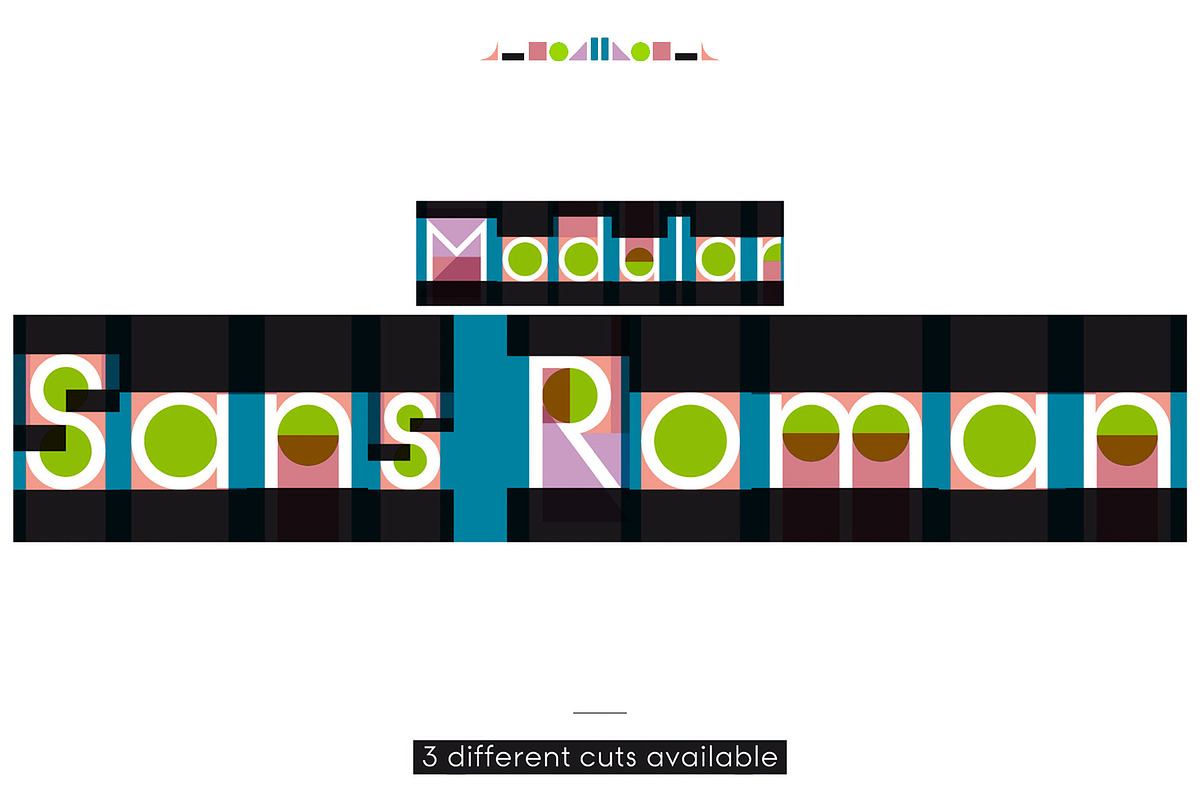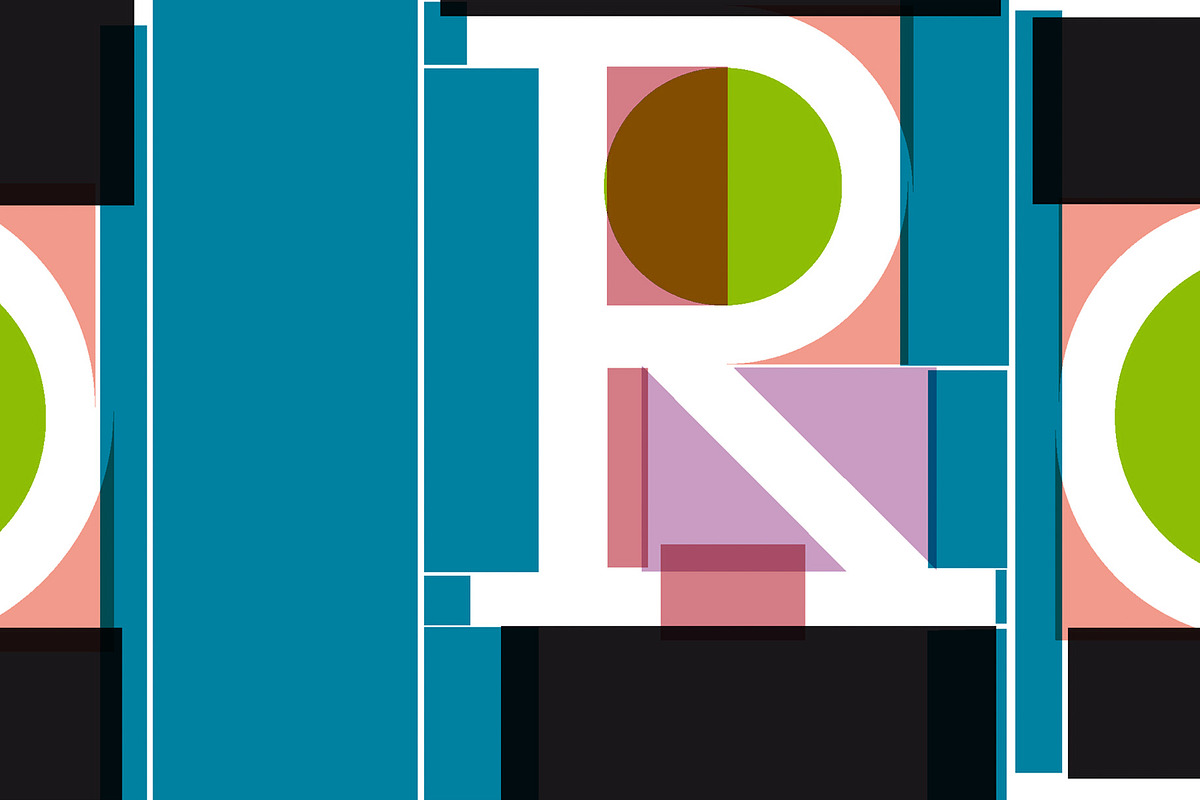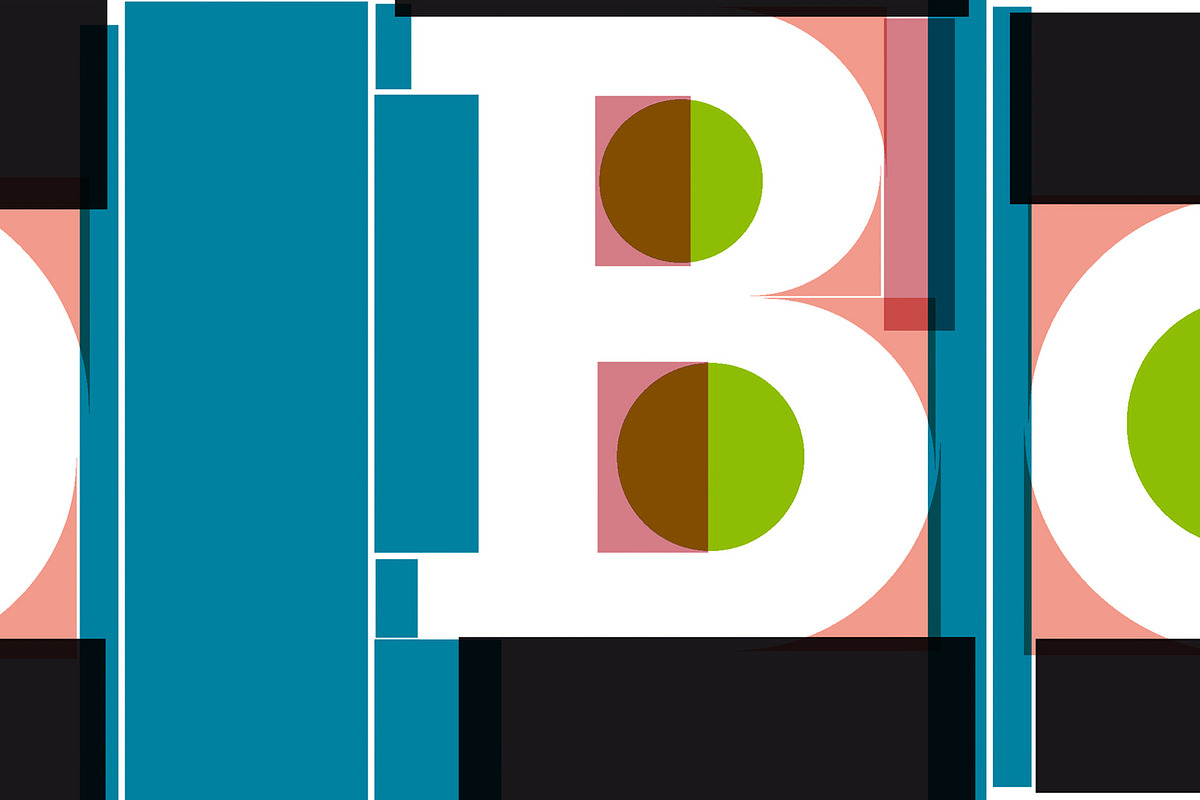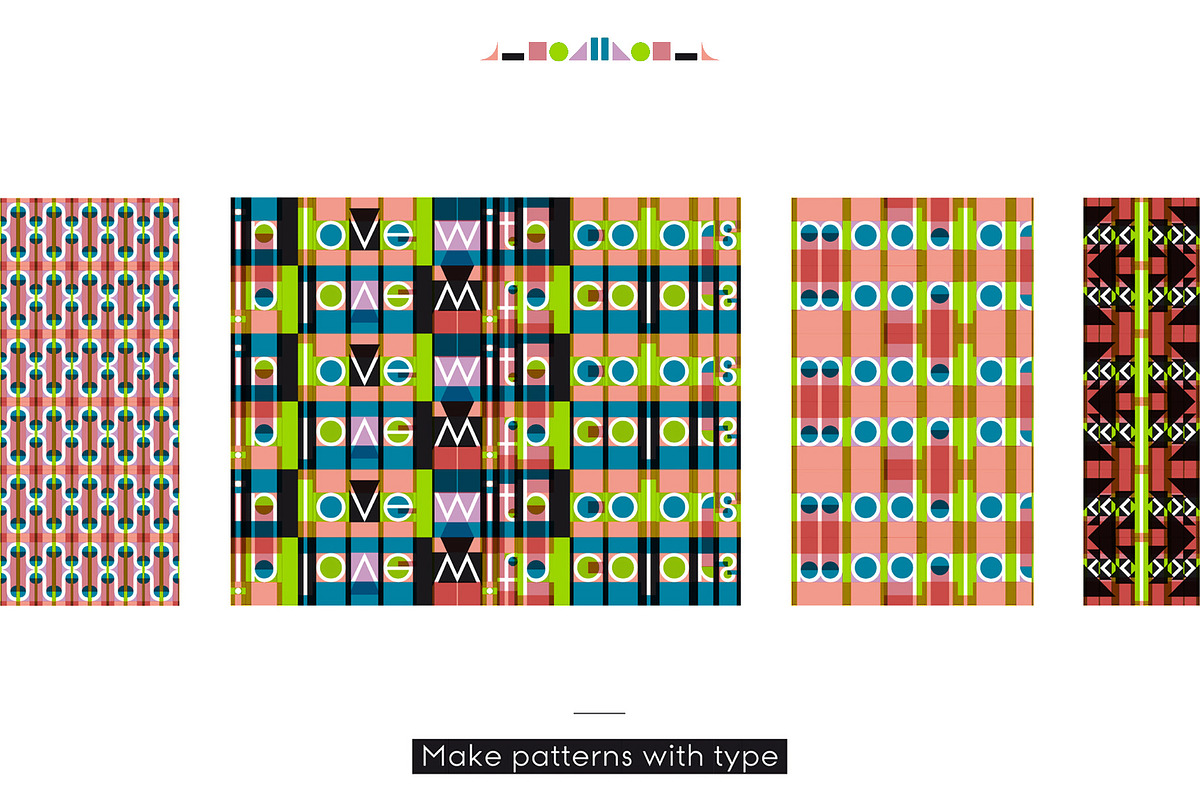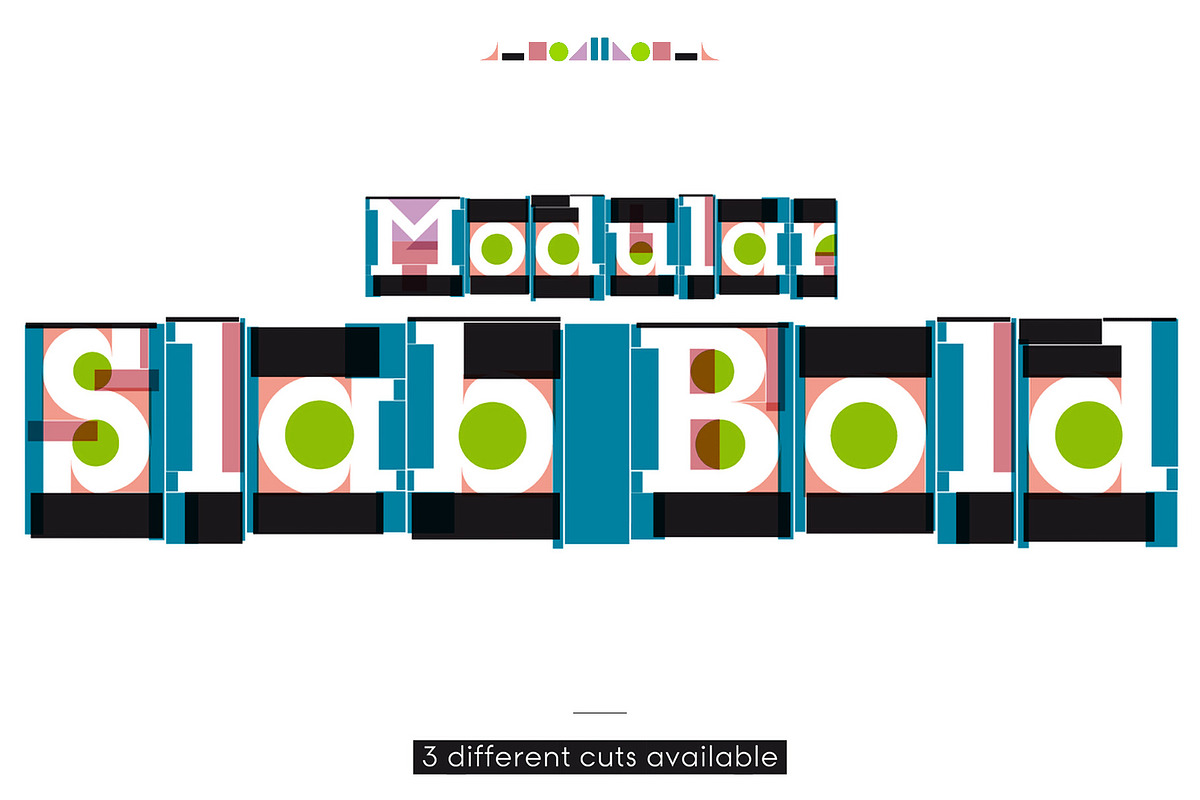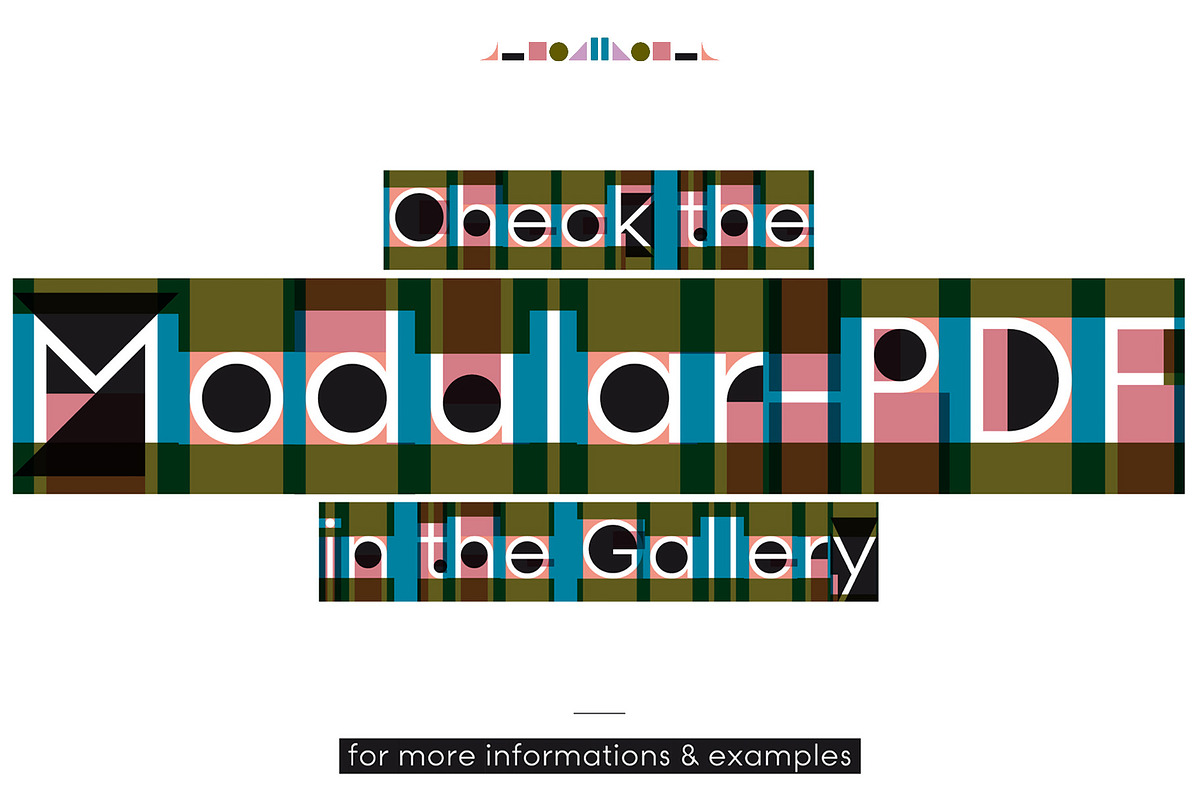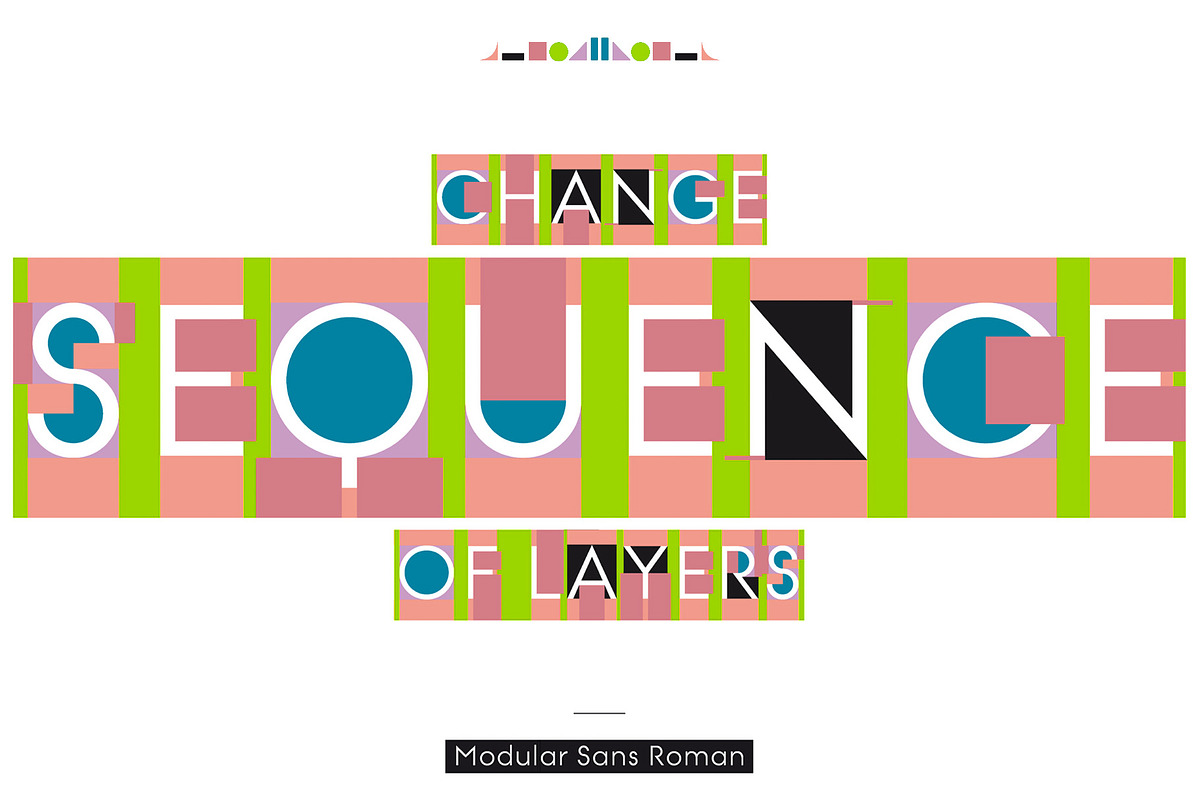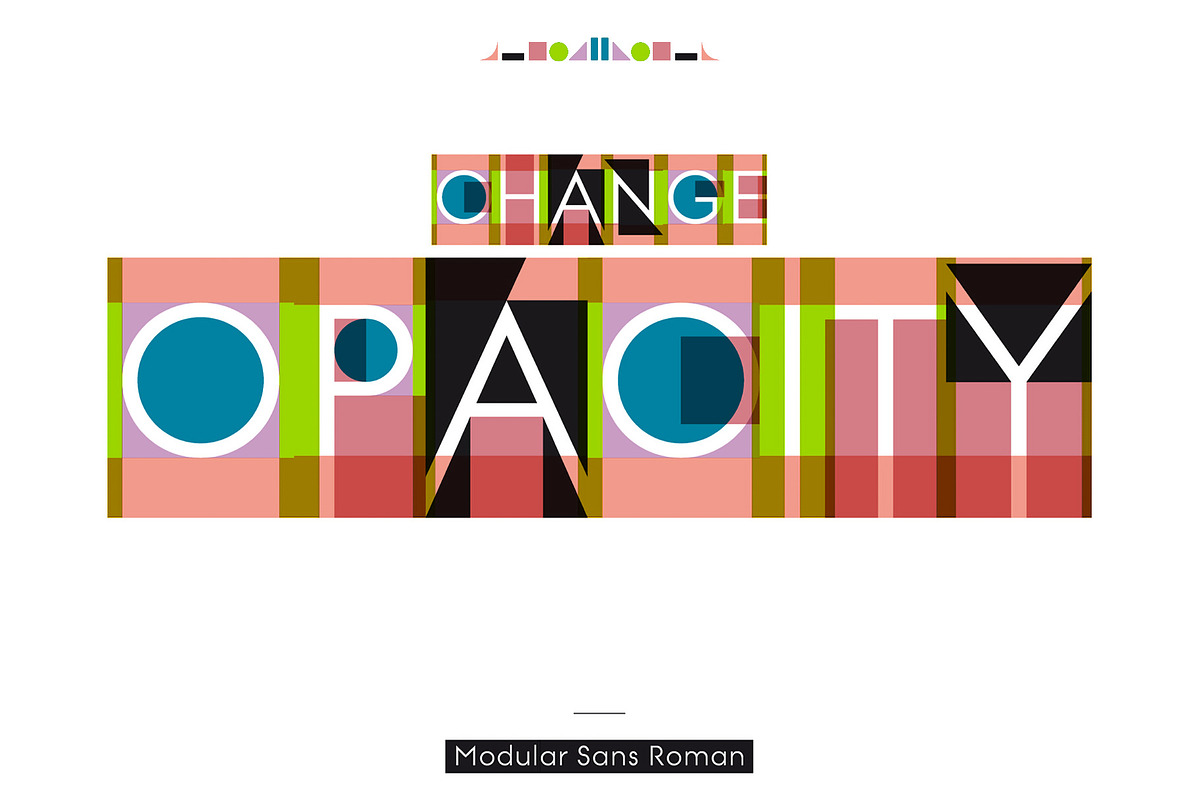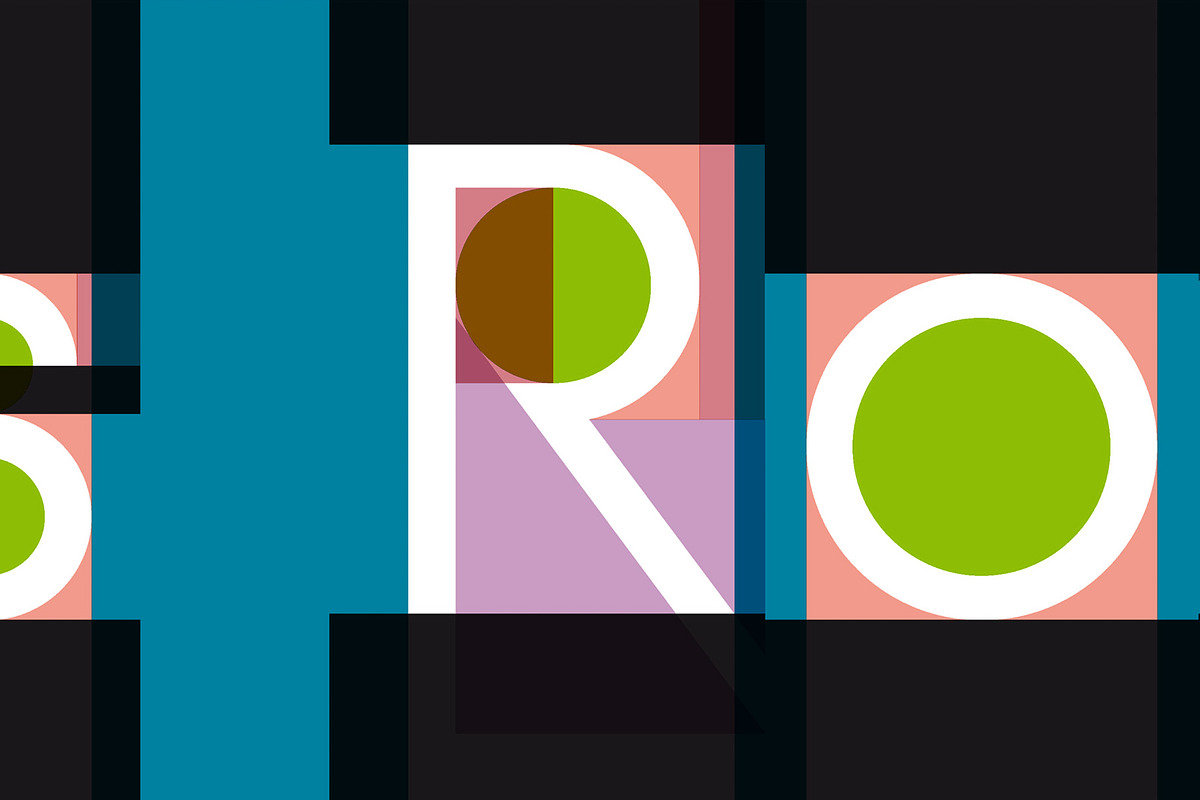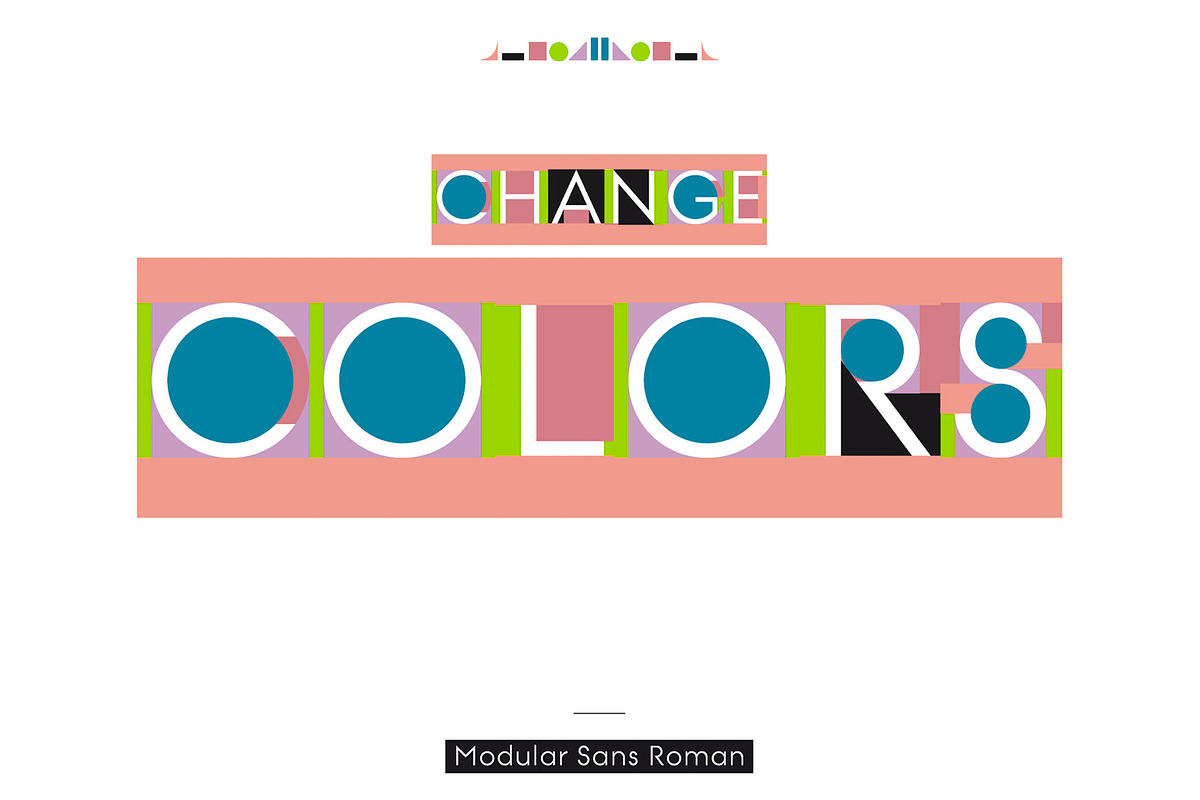
Modular Typeface
What is Modular? Modular is a six layer stacking display typeface. Six different layers build the type. In Modular each layer can be colored differently.
Available Cuts
- Modular Sans Roman (The shapes are exactly arranged)
- Modular Slab Roman (The Shapes do overlap and are out of alignment)
- Modular Slab Bold (The Shapes do overlap and are out of alignment)